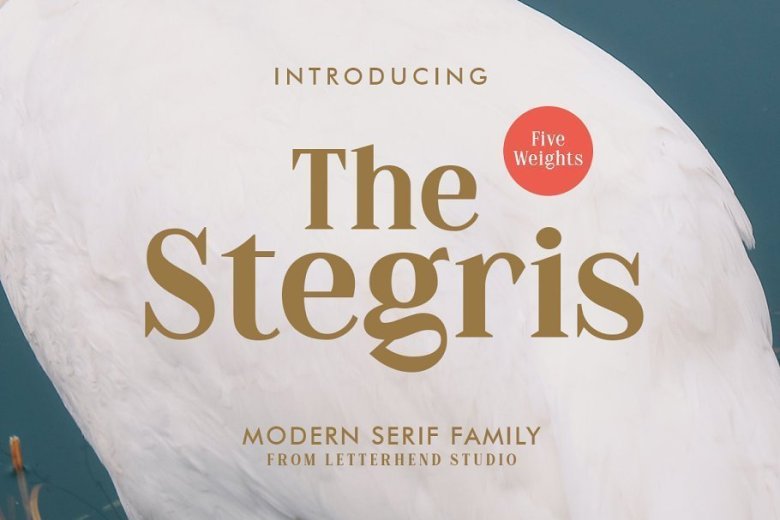
The Stegris Serif Font Family
Introducing The Stegris Serif Font Family, A pack of serif typeface with 5 weights : – Light, – Regular, – Semi bold, – Bold – Black ready to choose according to your needs. This typeface also has special feature with its ligatures which make it unique even more.
This type of font perfectly made to be applied especially in logo, and the other various formal forms such as invitations, labels, logos, magazines, books, greeting / wedding cards, packaging, fashion, make up, stationery, novels, labels or any type of advertising purpose.